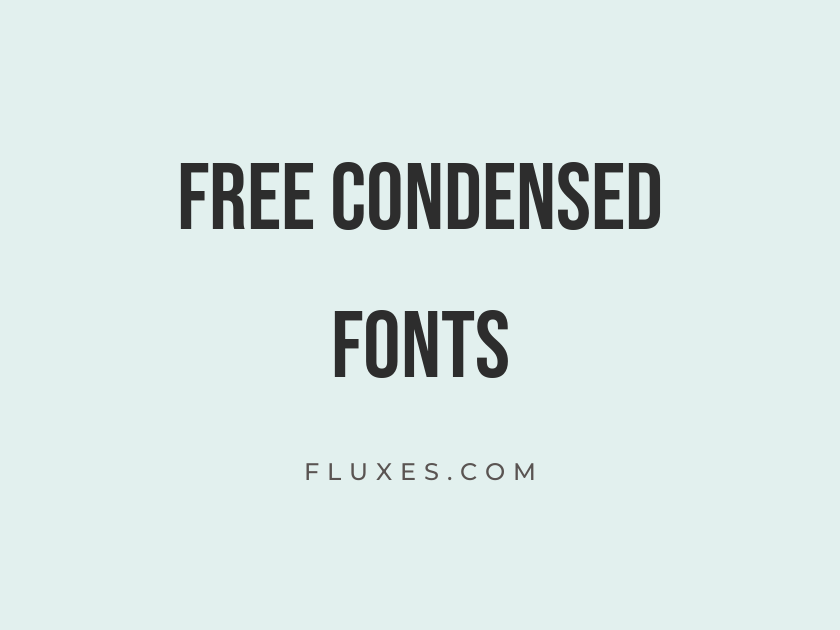
49 Best Free Condensed Fonts
Condensed fonts solve a very specific design problem: how to say more in less horizontal space without sacrificing impact. They dominate movie posters, sports jerseys, magazine mastheads, packaging labels, and any headline that has to fight for attention in a narrow column. The best free condensed fonts on Google Fonts cover everything from razor-thin geometric grotesques to bold Impact-style display faces, all downloadable and ready to license for commercial web and print work.
This roundup leans toward genuinely narrow, tall-proportioned letterforms rather than fonts that are merely bold or compact, so every pick here actually earns the word “condensed.”
1. Bebas Neue
STRONG HEADLINES BUILT FOR SMALL SPACES
Bebas Neue is the font most designers reach for first when a headline needs to be loud, tall, and all caps. It has become something of a default in poster design and social media graphics, which means it can look overused, but its clean geometry and even stroke widths still make it reliably legible at large sizes.
It only ships as capitals, so pair it with a lowercase workhorse for body copy rather than trying to set full paragraphs in it.
2. Oswald
Editorial headlines for the modern web
Originally reworked from classic gothic sign-painter styles, Oswald has quietly become one of the most dependable condensed sans-serifs on the web. It reads well in navigation bars, subheads, and pull quotes, and its wide weight range means it can whisper in Light or shout in Bold without losing its structure.
3. Anton
BOLD SPORTS SCORES AND GAME DAY GRAPHICS
Anton is about as heavy and condensed as a sans-serif gets while staying readable. It suits scoreboards, team merchandise, and shouty marketing copy, but it turns muddy at small sizes, so keep it strictly for display use.
4. Fjalla One
Compact type for tight editorial layouts
Fjalla One trims a standard grotesque down without stripping away its warmth, which gives it a friendlier feel than more mechanical condensed faces. It works nicely for magazine-style subheadings and works surprisingly well set in sentence case.
5. Barlow Condensed
Fast, technical headlines with an engineering edge
Part of the larger Barlow superfamily, Barlow Condensed carries the same rounded, slightly humanist grotesque bones just squeezed into a narrower frame. It has an engineering-inspired origin story, drawn from California license plates and highway signage, and that heritage shows in its no-nonsense clarity.
Because it shares metrics and character with the full Barlow family, it pairs effortlessly with regular-width Barlow for body text.
6. Barlow Semi Condensed
A gentler narrow option for interface labels
Barlow Semi Condensed splits the difference between the full-width family and its tighter Condensed sibling, making it a practical choice for UI labels, tags, and buttons where you need a little extra width savings without going full poster mode.
7. Roboto Condensed
Reliable narrow type for dense data tables
As the space-saving companion to Android’s default system font, Roboto Condensed is everywhere in app interfaces and dashboards. It is not the most characterful pick on this list, but that neutrality is exactly the point when you need to pack labels, stats, or metadata into tight columns.
8. PT Sans Narrow
A free, sturdy stand-in for Arial Narrow
For anyone hunting a genuinely free alternative to Arial Narrow, PT Sans Narrow is the answer. It carries broad language support out of the box thanks to its Russian design origins, and its bold weight holds up well in forms, labels, and government-style documents.
9. Archivo Narrow
Grotesque clarity in a narrower footprint
Archivo Narrow takes the no-frills grotesque structure of the wider Archivo family and tightens it for headline and caption work. It has a slightly technical, editorial feel that suits data journalism, annual reports, and infographic labeling.
It stays legible at smaller sizes better than most true condensed display faces, which makes it one of the safer picks for body-adjacent text.
10. Yanone Kaffeesatz
Café menus and casual signage typography
Named after the German word for coffee grounds, Yanone Kaffeesatz has a slightly rough, handcrafted energy that suits chalkboard menus and casual branding. Its lighter weights feel airy and open despite the condensed frame, an unusual trait for this category.
11. Saira Condensed
Tech-forward headlines with clean geometry
Saira Condensed belongs to one of the largest and most versatile type families on Google Fonts, spanning multiple widths from this one down to Extra Condensed. This particular cut strikes a comfortable middle ground for app interfaces and product marketing.
12. Saira Semi Condensed
Balanced narrow type for long-form reading
Saira Semi Condensed
Slightly wider than its Condensed sibling, Saira Semi Condensed is the version worth testing when you want the family’s crisp geometric character but need to set more than a headline or two.
13. Saira Extra Condensed
Squeeze bold statements into narrow banners
Saira Extra Condensed
Saira Extra Condensed pushes the same skeleton into genuinely tight territory, ideal for sidebar banners, vertical signage, or anywhere horizontal space is at a premium.
14. Khand
Sturdy condensed type for dashboards and apps
Khand
Khand comes from the same Indian Type Foundry family as Rajdhani and Teko, and it leans heavier and more robust than either of its siblings. Its slightly blocky terminals give it a technical, dashboard-ready character.
15. Cabin Condensed
Humanist warmth in a space-saving package
Cabin Condensed
Cabin Condensed keeps the rounded, humanist personality of the original Cabin family while trimming the width, which makes it feel less mechanical than many display-oriented condensed fonts. It suits friendly branding just as well as it suits interface copy.
16. Teko
Elegant condensed type inspired by Devanagari lettering
Teko has an unexpected elegance for a condensed sans, with slightly flared strokes that trace back to Devanagari calligraphic forms. It reads as more refined than most of its peers, which suits fashion, beauty, and lifestyle headlines.
17. Staatliches
Retro poster lettering with a hand-stenciled feel
Staatliches has a slightly worn, hand-cut quality reminiscent of vintage protest posters and old ticket stubs. It only comes in one weight, so treat it purely as a display accent rather than a full typographic system.
18. Big Shoulders Stencil
Industrial stencil lettering for bold labels
Big Shoulders Stencil
This stencil cut brings a warehouse-signage, freight-crate feel to the Big Shoulders family, and it works well for badges, packaging, and anything that wants a rugged, urban edge.
19. Big Shoulders Inline
Layered condensed type for decorative headlines
Big Shoulders Inline
The inline treatment adds a hollow center stroke that gives headlines a bit of dimensional flair, best reserved for large display use rather than anything that needs to stay crisp at small sizes.
20. Encode Sans Condensed
Versatile narrow type for corporate branding
Encode Sans Condensed
Encode Sans Condensed offers a clean, neutral grotesque structure with none of the personality quirks that might date it, making it a safe, corporate-friendly choice for annual reports and signage systems.
21. Encode Sans Semi Condensed
A gentler width for longer condensed passages
Encode Sans Semi Condensed
Semi Condensed opens the letterforms up just enough to remain comfortable across a paragraph or two, useful when a fully condensed cut starts to feel claustrophobic.
22. Fira Sans Condensed
Trusted grotesque clarity in a tighter width
Fira Sans Condensed
Fira Sans Condensed inherits the excellent screen legibility of Mozilla’s original Fira Sans, so it holds up well in interface labels and data-heavy layouts where clarity cannot be sacrificed for space savings.
23. Fira Sans Extra Condensed
Maximum width savings without losing legibility
Fira Sans Extra Condensed
Extra Condensed pushes Fira Sans about as tight as it can go while remaining genuinely readable, a rare balance among the more aggressive condensed cuts on this list.
24. IBM Plex Sans Condensed
Corporate technical type with quiet confidence
IBM Plex Sans Condensed
IBM Plex Sans Condensed carries the same understated, engineered feel as the rest of the Plex superfamily, and it is a smart pick when a project already uses Plex elsewhere and needs a narrower voice for sidebars or captions.
25. League Gothic
A free revival of the classic Alternate Gothic
League Gothic
League Gothic is a faithful, freely licensed revival of the early twentieth-century Alternate Gothic style, which makes it one of the more historically grounded choices here. It suits mastheads, wordmarks, and anywhere a vintage American newspaper feel is welcome.
26. Asap Condensed
Clean geometric type for modern interfaces
Asap Condensed
Asap Condensed keeps the friendly, slightly rounded geometry of the wider Asap family while trimming it down for tighter layouts, giving it a more approachable feel than many of its stricter grotesque competitors.
27. Ubuntu Condensed
A distinctive narrow companion to a familiar typeface
Ubuntu Condensed
Ubuntu Condensed carries the same rounded, slightly quirky character strokes that made the full Ubuntu family so recognizable, just narrower. It only comes in one weight, so it works best as a supporting voice rather than a full system.
• Language support: Latin, Latin Extended, Cyrillic, Cyrillic Extended, Greek, Greek Extended
28. Antonio
Retail signage lettering with confident presence
Antonio
Antonio has the wide stance of classic mid-century compressed gothics used on storefront signage and packaging, giving it an approachable retail energy that heavier faces like Anton do not quite capture.
• Styles: 7 weights (Thin to Bold)
29. Six Caps
EXTREMELY TIGHT LETTERING FOR MASSIVE HEADLINES
Six Caps
Six Caps is about as condensed as legible type gets on Google Fonts, an uppercase-only face built for oversized headlines rather than anything smaller. Use it sparingly, at large sizes, and never expect it to carry a full sentence of body copy.
30. Jomhuria
Tall, dramatic display lettering for bold statements
Jomhuria
Jomhuria began as an Arabic display face and carries that same theatrical, stretched-tall drama into its Latin companion glyphs, making it a striking, unusual choice for posters and title cards.
• Language support: Latin, Latin Extended, Arabic
31. Francois One
Simple condensed lettering for clean headlines
Francois One
Francois One keeps things straightforward, a no-fuss condensed grotesque that slots into headline duty without demanding much attention for itself, which is precisely its appeal in cleaner, minimal layouts.
32. Pathway Gothic One
Understated condensed type for masthead lettering
Pathway Gothic One
Pathway Gothic One has a restrained, almost bureaucratic plainness that suits mastheads and wayfinding signage more than flashy marketing. It briefly appeared in Wikipedia’s own visual identity work, a fitting home for such a utilitarian face.
33. Economica
Tight, economical lettering for small ad spaces
Economica
True to its name, Economica squeezes letterforms tightly together, making it useful for classified-style ads or anywhere copy needs to fit an unusually narrow column.
34. Unica One
Futuristic condensed type with a technical edge
Unica One
Unica One leans geometric and slightly futuristic, with a mechanical rhythm that suits tech branding, gaming interfaces, and anything that wants a synthetic, screen-native feel.
35. Rajdhani
Geometric condensed type with an Indian design pedigree
Rajdhani shares its family tree with Teko and Khand but leans more geometric and squared-off, giving it a slightly more contemporary, app-friendly personality than its siblings.
36. Odibee Sans
Retro badge lettering with rounded terminals
Odibee Sans
Odibee Sans has a rounded, slightly bouncy character that recalls vintage varsity badges and hand-painted signage, a warmer alternative to the sterner grotesques dominating this category.
37. Stalinist One
Tall constructivist lettering for bold propaganda-style art
Stalinist One
Stalinist One is unmistakably rooted in Soviet-era constructivist design, with severe, towering letterforms that make an unforgettable statement on posters, album art, or anything leaning into a stark political aesthetic. It is not a font for subtlety, and it should never be asked to do more than a word or two at a time.
38. Darker Grotesque
Expressive condensed type built for oversized headlines
Darker Grotesque
Darker Grotesque tightens its letterspacing dramatically at heavier weights, producing an expressive, almost claustrophobic density that reads as confident rather than cramped when set large.
• Styles: 7 weights (Light to Black)
39. Katibeh
Bold condensed lettering with Arabic calligraphic roots
Katibeh
Katibeh pairs a compact, weighty Latin display face with its Arabic counterpart, giving bilingual projects a genuinely matched condensed pairing rather than two unrelated fonts forced together.
• Language support: Latin, Latin Extended, Arabic
40. Iceland
A cool, technical face for sci-fi inspired branding
Iceland
Iceland has a slightly synthetic, sci-fi quality that suits gaming logos, tech startups, and anything wanting a futuristic edge without going fully robotic.
41. Fugaz One
Punchy condensed type built for attention-grabbing posters
Fugaz One
Fugaz One carries real weight and swagger, with slightly rounded corners that soften its bulk just enough to keep it from feeling aggressive. It is a strong choice for event posters and promotional graphics that need to be read from across a room.
42. Squada One
Compact rounded lettering for playful branding
Squada One
Squada One trades the sharper edges of most condensed faces for softer, rounded terminals, giving it a friendlier tone suited to app icons, badges, and casual branding work.
43. Gemunu Libre
Narrow, tall lettering with international character support
Gemunu Libre
Originally developed to serve Sinhala script, Gemunu Libre’s Latin companion inherited a distinctively narrow, tall structure that stands out from more conventional grotesque-based condensed fonts.
• Language support: Latin, Latin Extended, Sinhala
44. Bayon
Bold temple-inspired lettering for heavyweight headlines
Bayon
Bayon draws its name and character from Cambodian temple carving traditions, resulting in a thick, condensed display face that functions much like a free alternative to Impact for anyone who needs maximum visual weight.
• Language support: Latin, Khmer
45. Alumni Sans
Scholastic condensed lettering for yearbook-style branding
Alumni Sans
Alumni Sans borrows its structure from mid-century school and university lettering, giving it a nostalgic, collegiate warmth that works well for education branding, varsity-style logos, and editorial nameplates alike.
46. Alumni Sans Collegiate One
Bold varsity lettering for sports team branding
Alumni Sans Collegiate One
This blockier collegiate cut leans harder into the varsity jacket aesthetic than the standard Alumni Sans, making it a strong pick specifically for team names, jersey numbers, and athletic department branding.
47. Ranchers
Tall, energetic lettering for playful headlines
Ranchers
Ranchers has a loose, slightly hand-built energy that keeps it from feeling as rigid as most condensed display faces, which suits youth brands, food trucks, and casual event graphics.
48. Vina Sans
Vintage hand-lettered charm in a condensed frame
Vina Sans
Vina Sans draws on vintage Vietnamese sign-painting traditions, blending a condensed structure with loose, handwritten irregularity. It brings genuine personality to packaging and menu design where a more mechanical condensed face would feel cold.
49. RocknRoll One
Sharp condensed type for music and event posters
RocknRoll One
RocknRoll One has a sleek, tightly spaced geometry that suits music branding, concert posters, and anything wanting an energetic, slightly aggressive edge without going full display-weight heavy.
• Language support: Latin, Latin Extended, Japanese
Using condensed fonts well
Condensed fonts are built for headlines, not paragraphs. Save the tightest, boldest options for short bursts of text and let a more open font carry body copy.
Watch letter-spacing carefully. Many condensed and display faces need a touch of extra tracking at small sizes to avoid letters visually merging together.
Pair a condensed headline font with a neutral, well-spaced body font such as a standard grotesque or a readable serif. The contrast in width does most of the pairing work for you.
Test everything at the sizes you will actually use. Some of the more decorative condensed display faces look striking at sixty pixels and fall apart entirely at twelve.